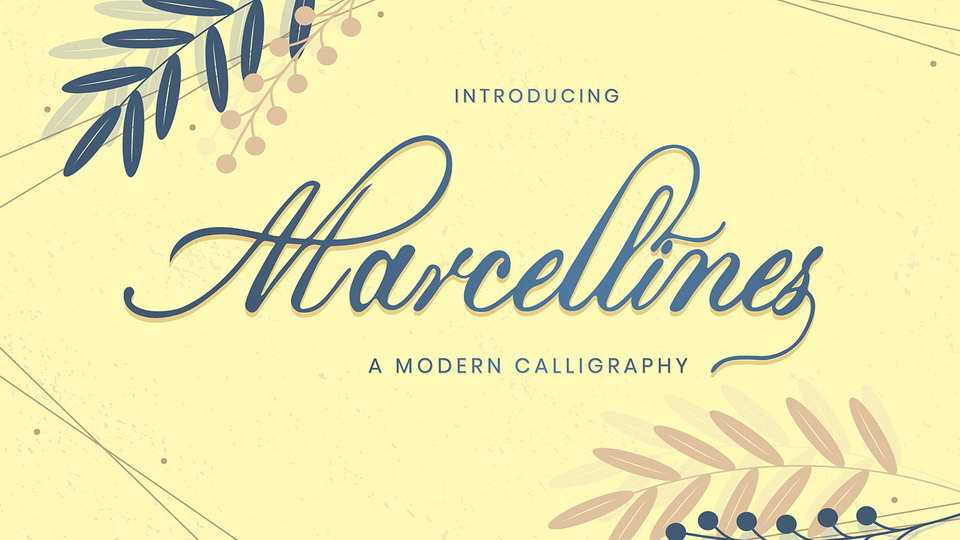
Download Marcellines font, a charming modern calligraphy typeface Marcellines is made by handwriting directly using a brush pen so that it can produce fonts that have character and artistic.